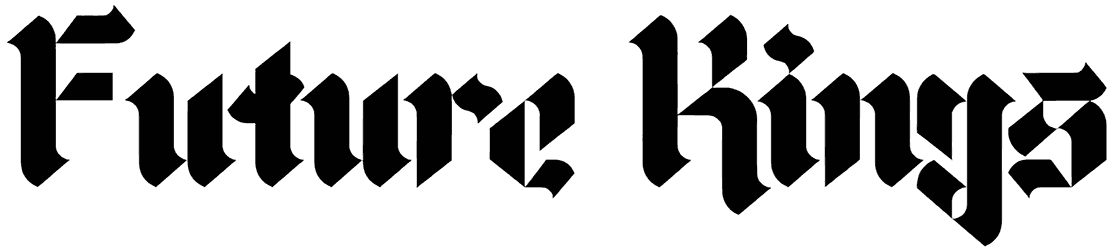
Future Kings Font
Treat your text design and branding visions to a classic and brilliant antique effect. Future Kings will be inspired by traditional flat looks and boost viewers’ attention with your top-quality designs. Break free from a…
Treat your text design and branding visions to a classic and brilliant antique effect. Future Kings will be inspired by traditional flat looks and boost viewers’ attention with your top-quality designs. Break free from all the effort and trouble of creating one from scratch.
You’ll be simply using this gothic font on any site, like album covers and movie titles, and then see how it sounds well. Now you have the possibility to elevate your design style by picking these trendy graphics soon.